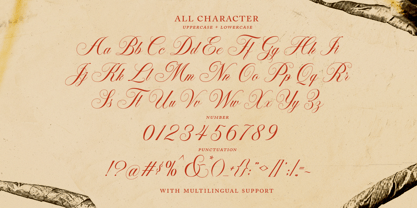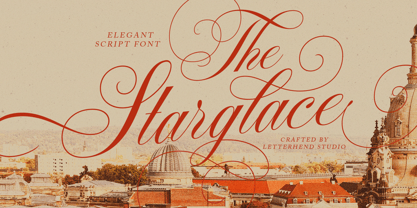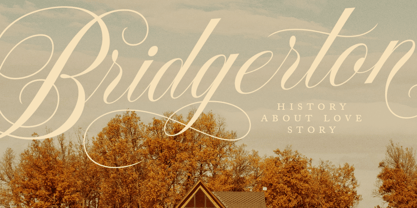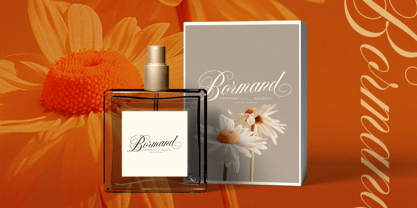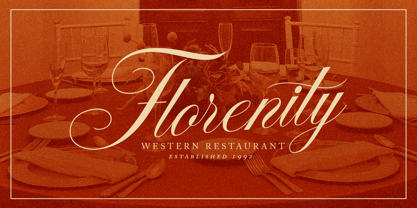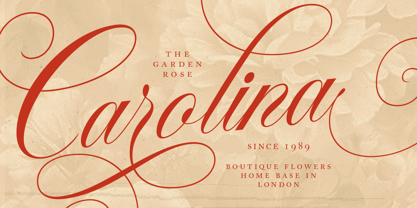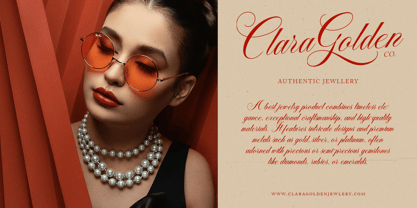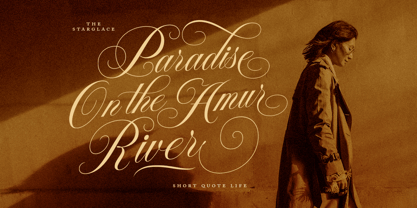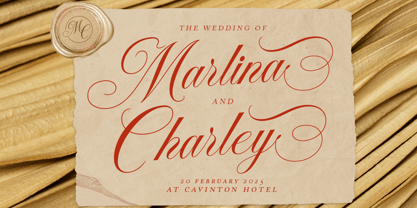
Starglace
by Letterhend
The Starglace Font Family was designed by Hendry Juanda and published by Letterhend. Starglace contains 1 styles. More about this family
The Starglace is a sophisticated script font designed to embody elegance and timeless beauty. The fine details and flowing curves of The Starglace are crafted to deliver an exquisite look, suitable for both modern and vintage themes. Whether used as a headline or a stylish accent, this font adds a touch of sophistication to any project.
• Uppercase & lowercase
• Numbers and punctuation
• Alternates Character
• Multilingual support